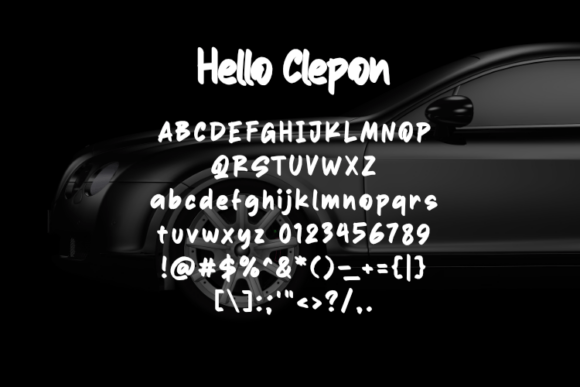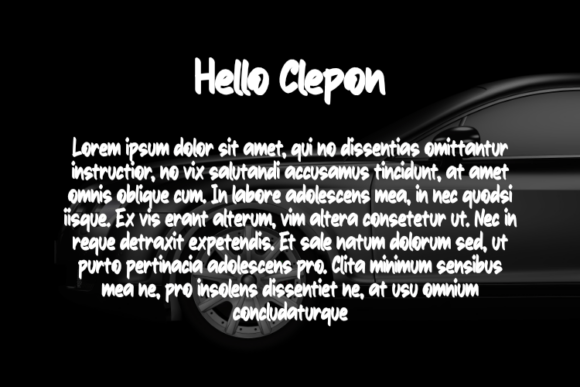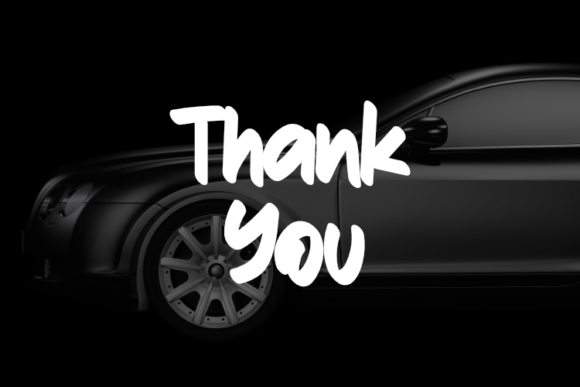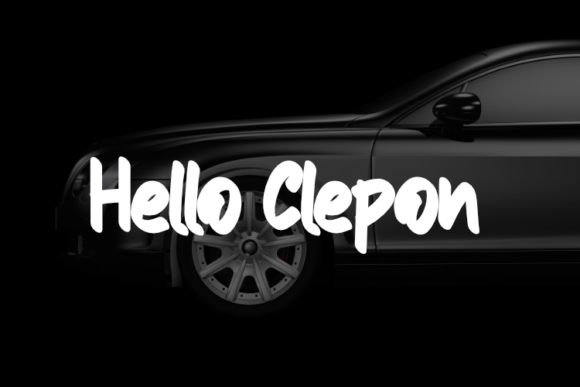
Introduction to Hello Clepon Font
Presenting β€œHello Clepon” – the versatile font style that effortlessly gels with any design theme.
Key Features of Hello Clepon Font
Why Choose Hello Clepon Font?
Hello Clepon Font offers exceptional quality and versatility, making it a valuable addition to your design toolkit. Whether you’re creating for personal projects or commercial use, Hello Clepon Font delivers professional results.